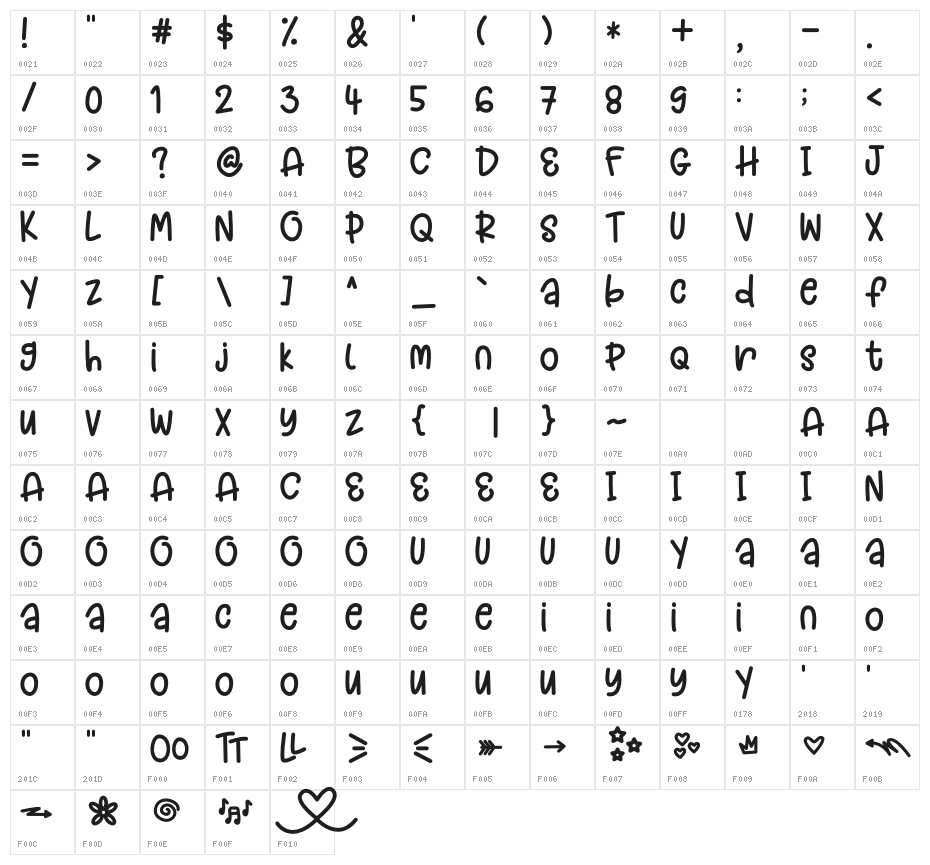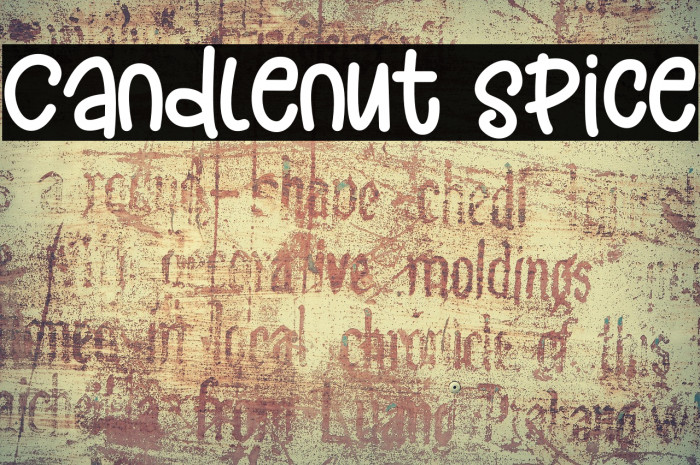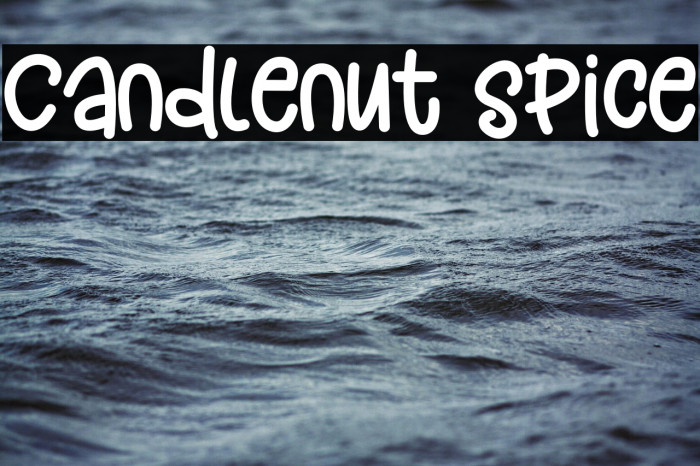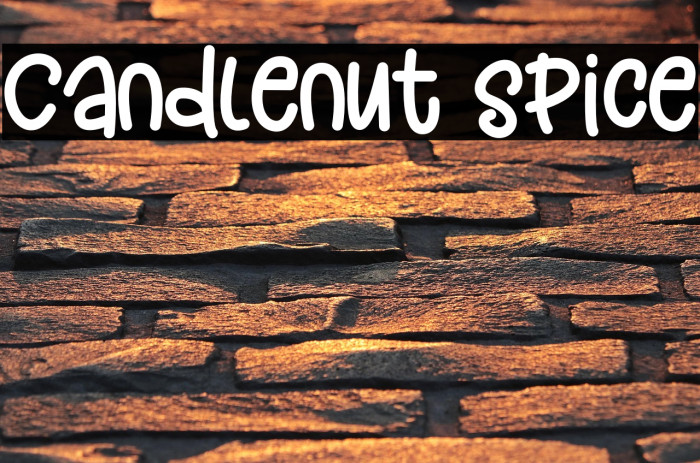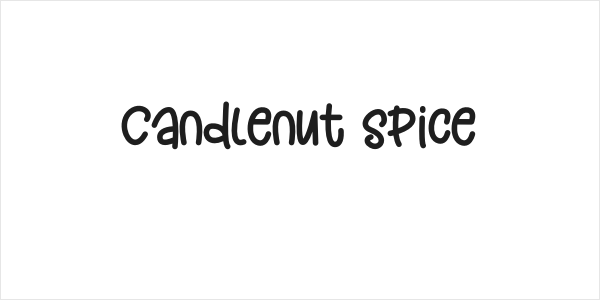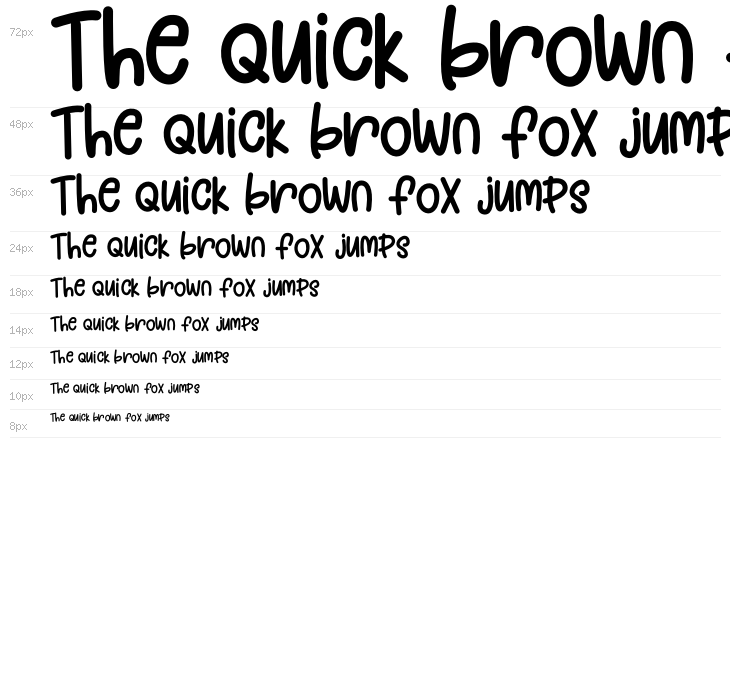
Candlenut Spice Font
Candlenut Spice Description
This playful and bold font features a handwritten style with rounded edges and a casual, friendly appearance. The characters are thick and consistent in weight, giving the font a strong presence. The uppercase and lowercase letters maintain a uniform style, with slight variations that add to its charm. Numbers and special characters are designed to match the overall aesthetic, making it versatile for various uses. The font's informal and approachable look makes it ideal for creative projects that require a personal touch.
| Proposed Projects | Ideal for children's books, greeting cards, posters, and social media graphics. |